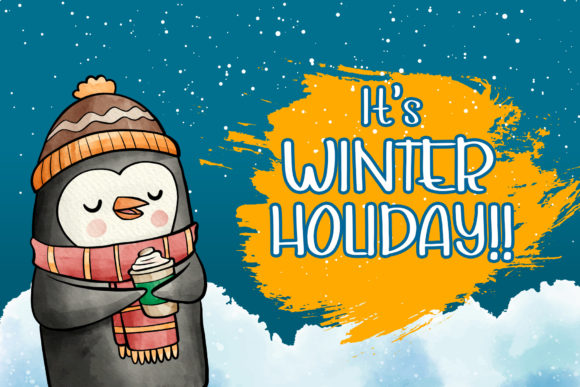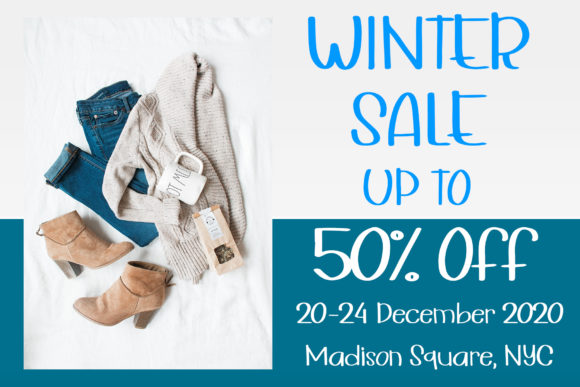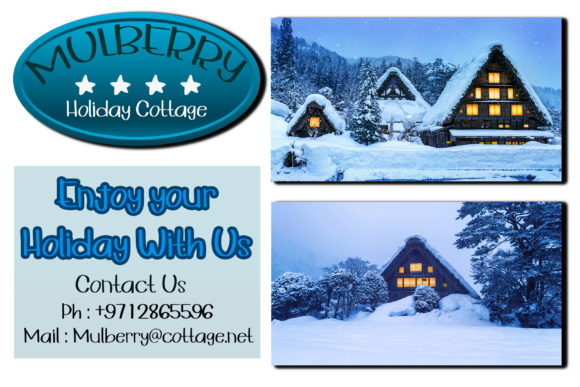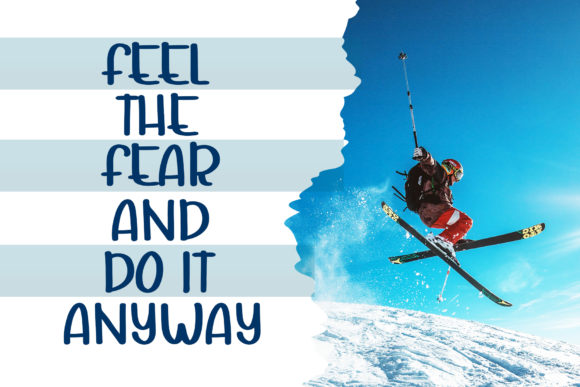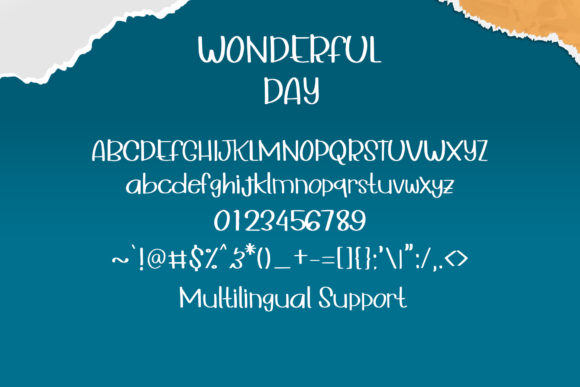
Wonderful Day Font
About Wonderful Day Font
Wonderful Day is a unique and quirky handwritten font. It can easily be matched to an incredibly large set of projects, so add it to your creative ideas and notice how it makes them stand out!